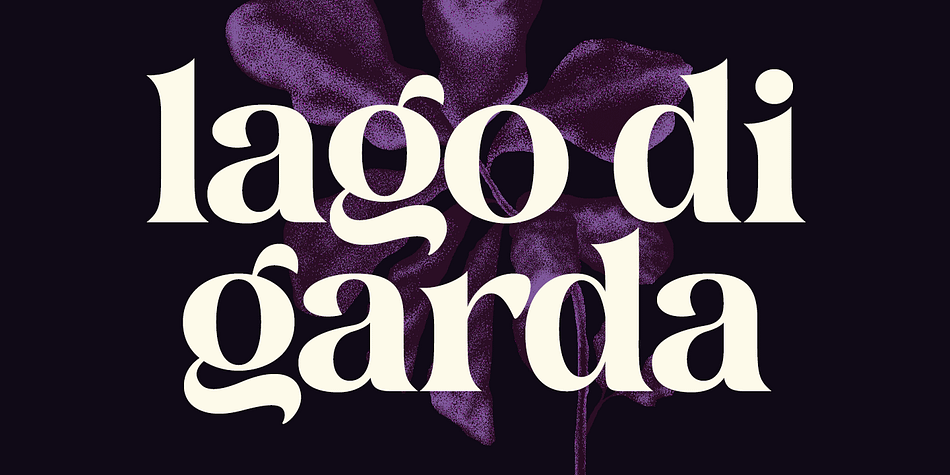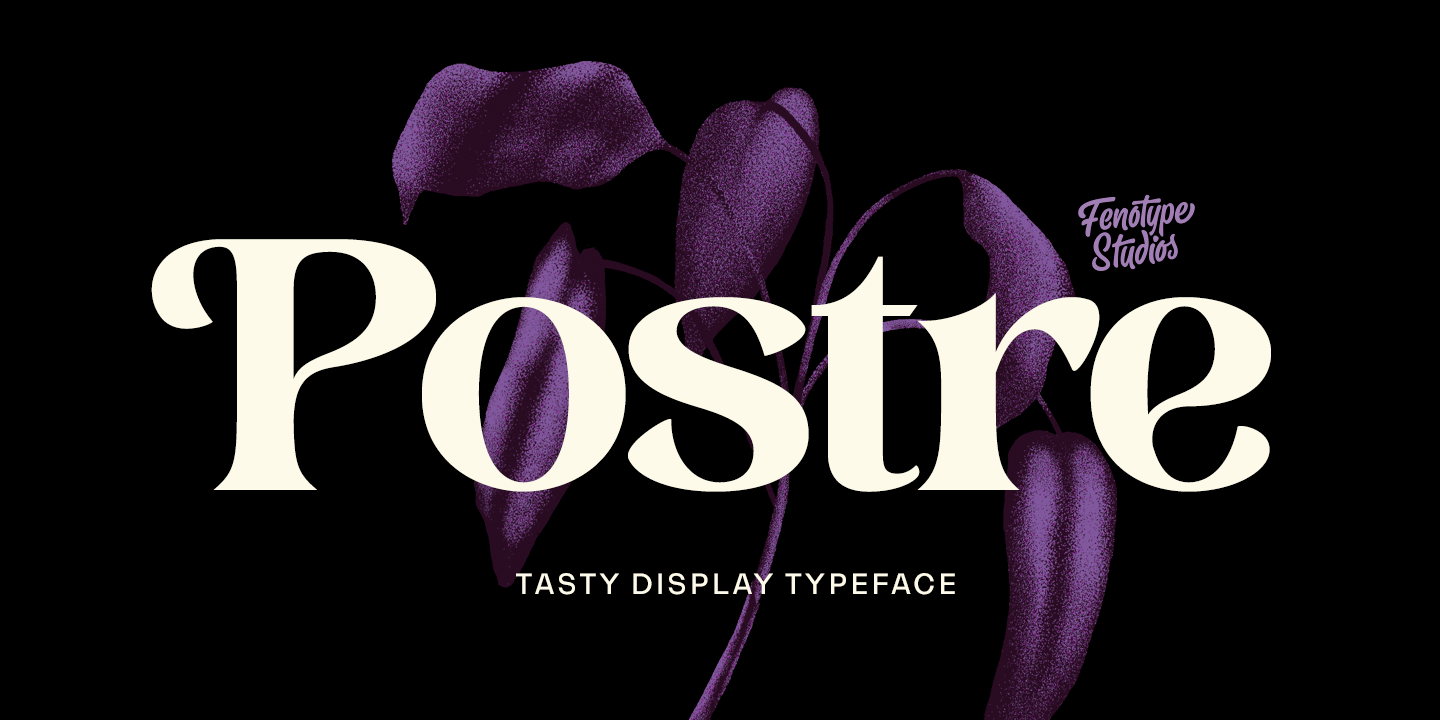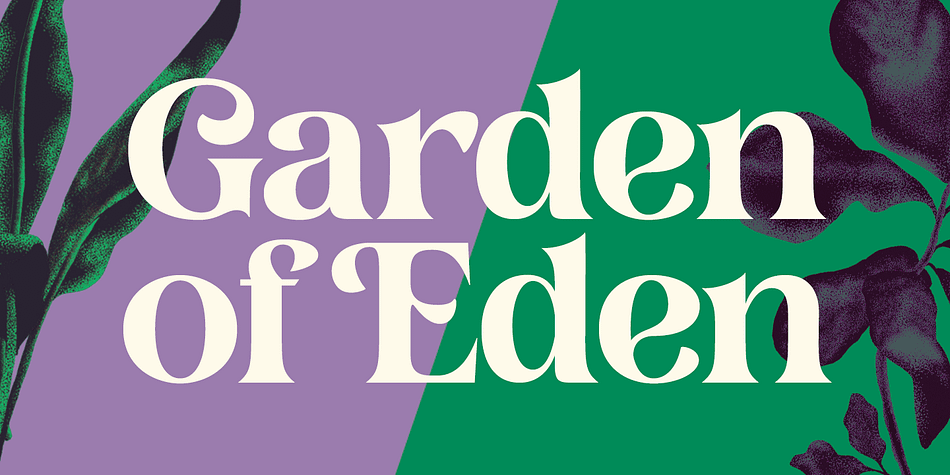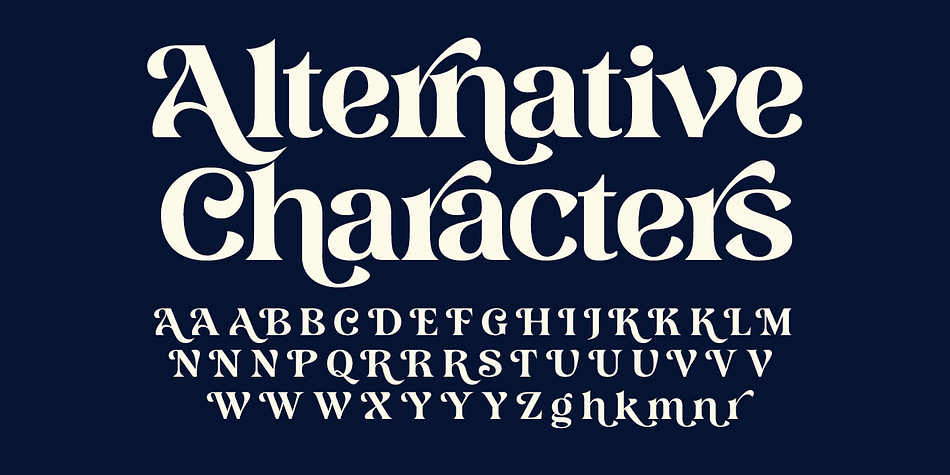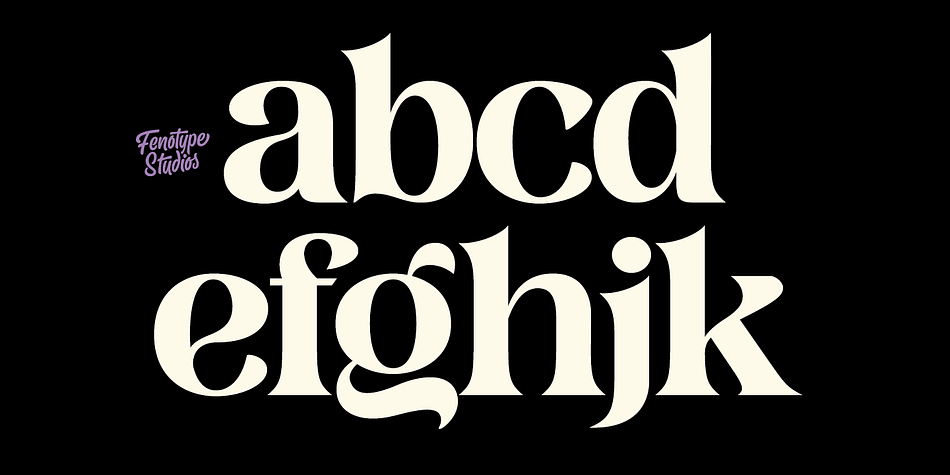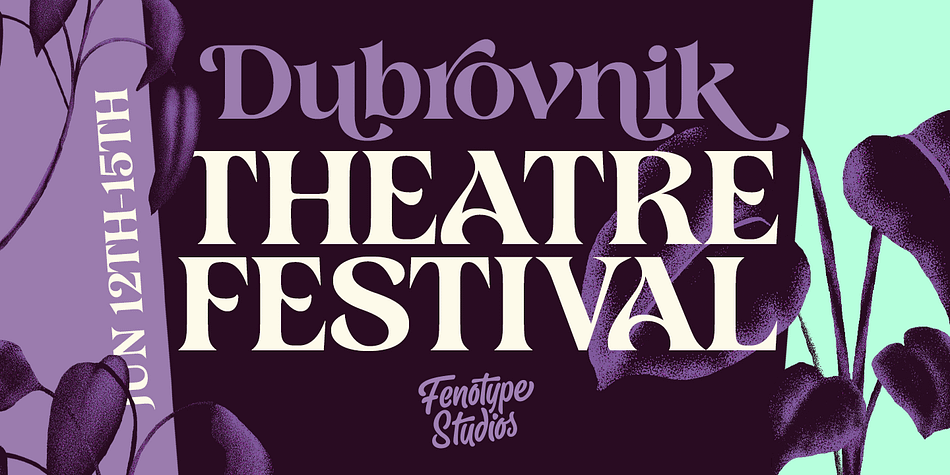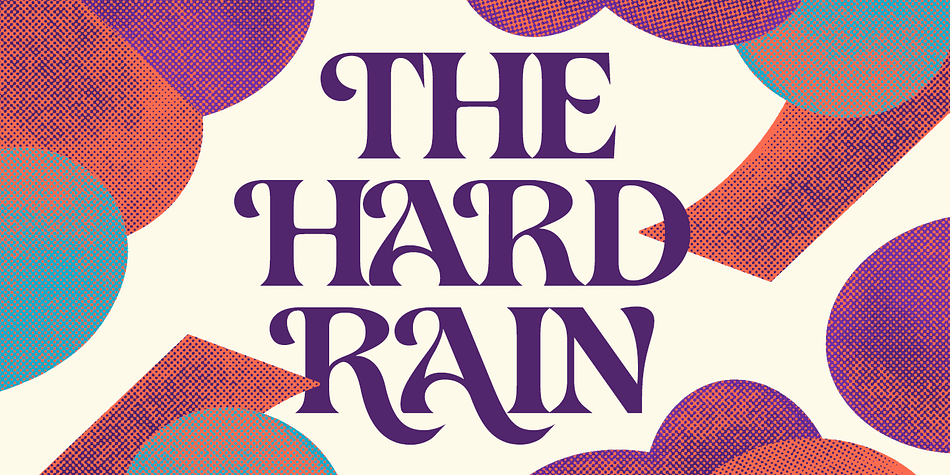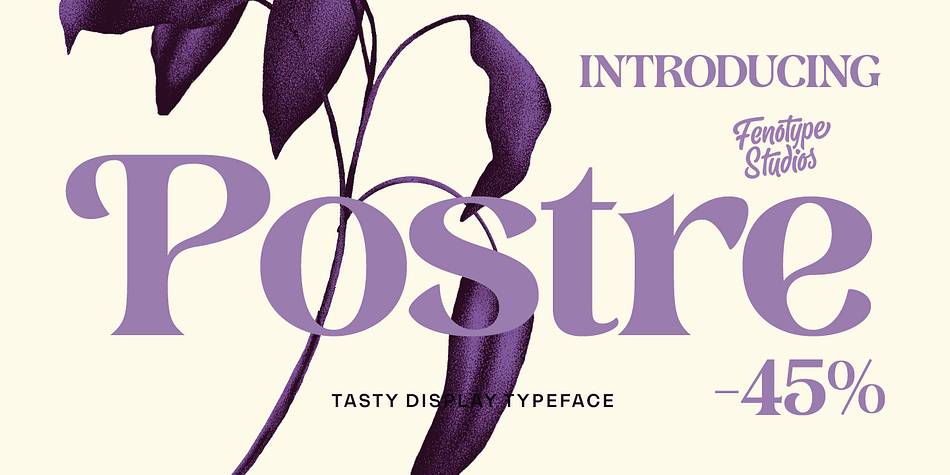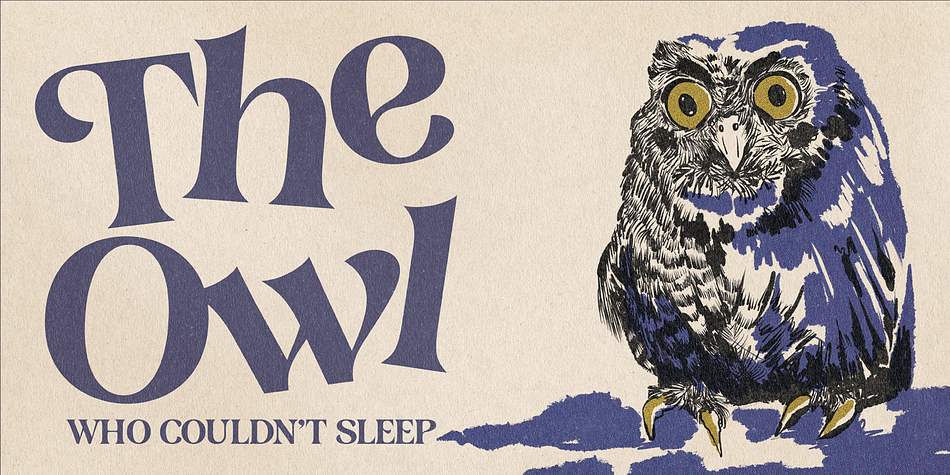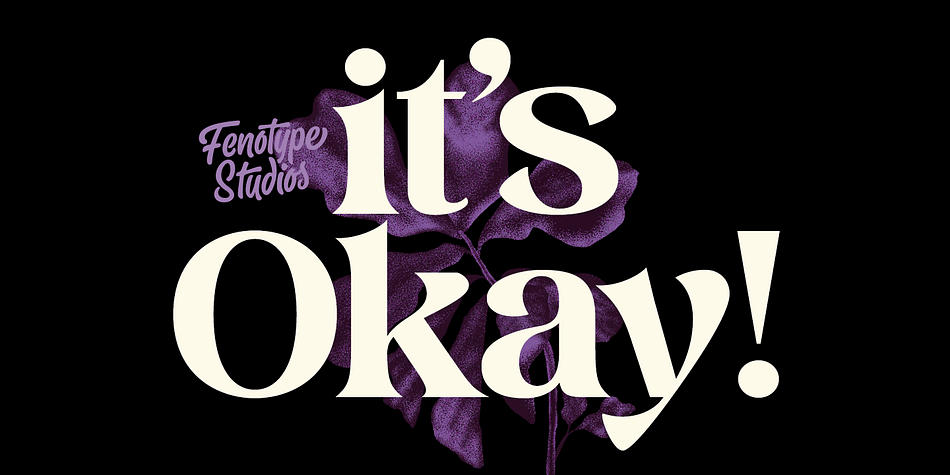
Postre
Designed by Emil Bertell, Postre is a display serif and retro font family published by Fenotype.
Tasty and sweet, Postre is a sleek high contrast serif type with certain Art Nouveau influence. Postre is excellent for headlines, packaging, posters and any other display use conveying an elegant impression.
Postre is equipped with a selection of 50 alternate characters set in Swash, Stylistic and Titling Alternates, as well as standard ligatures.